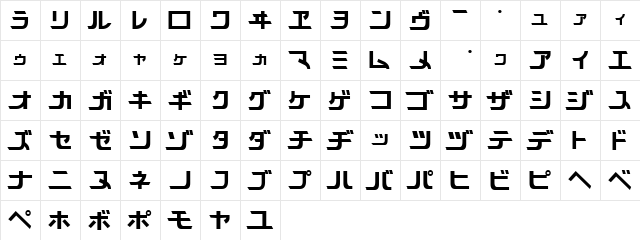
Star Trek Regular
Design Context for Star Trek Typeface
Star Trek is a composed and adaptable typeface that performs quietly and consistently across a wide range of design contexts.